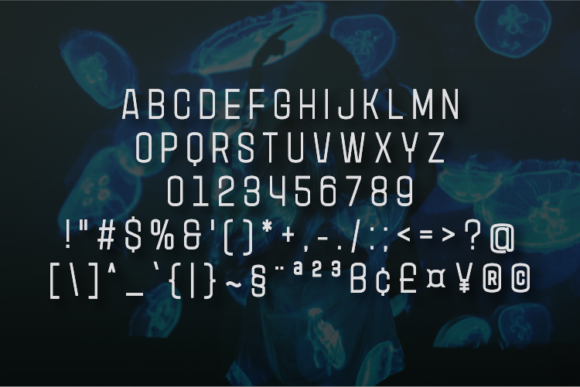
Introduction to Halubert Font
As a designer, you know that sometimes the perfect font can make all the difference in bringing your creative project to life. I still remember the moment when I stumbled upon a beautifully designed logo with the Halubert Font, and I knew right away that I had to learn more about it.
With its simple and casual design, the Halubert Font is a high-quality typeface that can add a touch of elegance to any project. Whether you’re working on a formal brochure or a fun social media campaign, this font is sure to impress with its neat and beautiful arrangement of letters. One of the best things about the Halubert Font is its versatility, allowing it to shine on both transparent backgrounds and more complex designs.
Key Features of Halubert Font
- High-quality design for creative projects, offering a unique aesthetic and style.
- Includes a range of characters and glyphs, making it suitable for a variety of creative projects, from logos to typography.
Honest Review: Halubert Font
As a designer, I’m always on the lookout for high-quality design resources that can elevate my creative projects. The Halubert Font caught my eye, and I’m excited to share my thoughts on this beautiful font.
What works well: ✨ The Halubert Font has a unique and elegant design that’s perfect for a variety of creative projects. The transparent background makes it easy to use on both light and dark backgrounds. The font is also incredibly versatile, making it suitable for both digital and print design.
- Unique and elegant design
- Transparent background for easy use
- Highly versatile for digital and print design
What doesn’t work so well: ⚠️ The Halubert Font may not be the best choice for projects that require a bold or dramatic font. Additionally, the font’s design may not be suitable for projects with very small text sizes.
Tips for Getting the Most Out of Halubert Font
For the best results, use the Halubert Font on a transparent background to showcase its high-quality design. Experiment with different font sizes and styles to add visual interest to your project.
The Halubert Font is perfect for creating eye-catching titles, headings, and body text for various design projects, including business cards, brochures, and social media graphics.